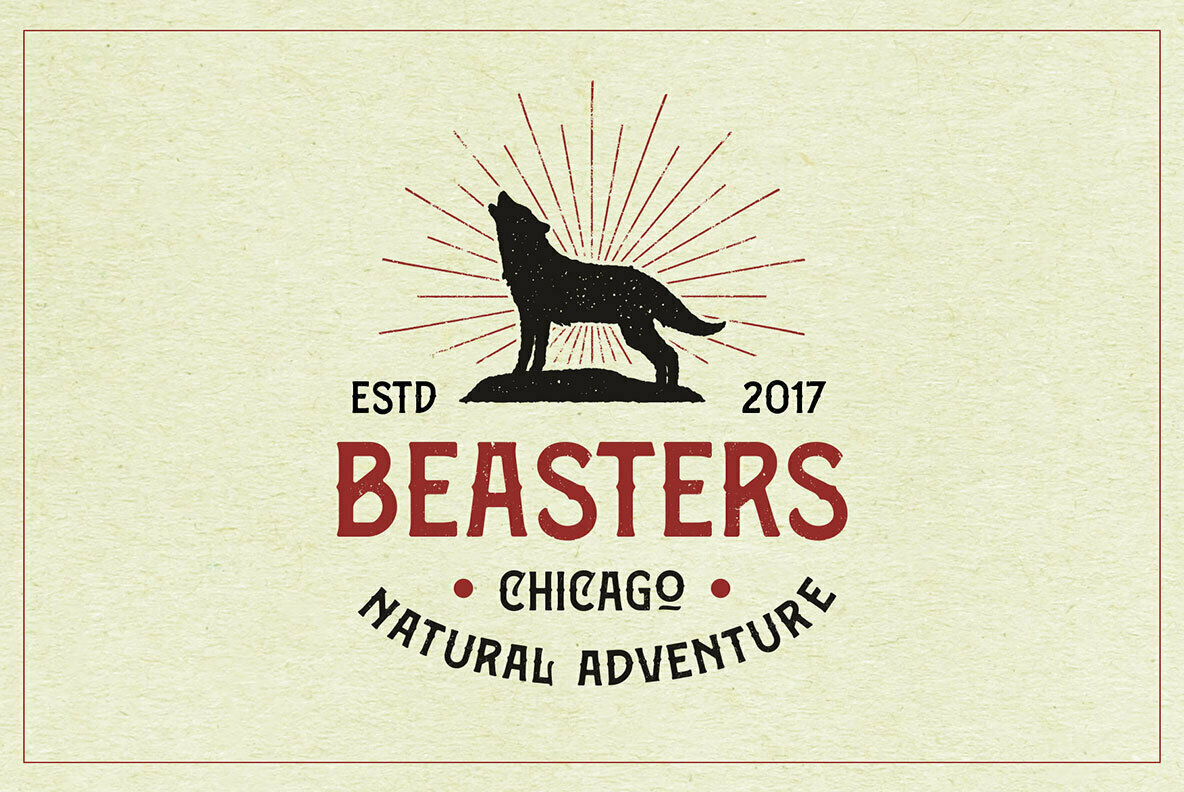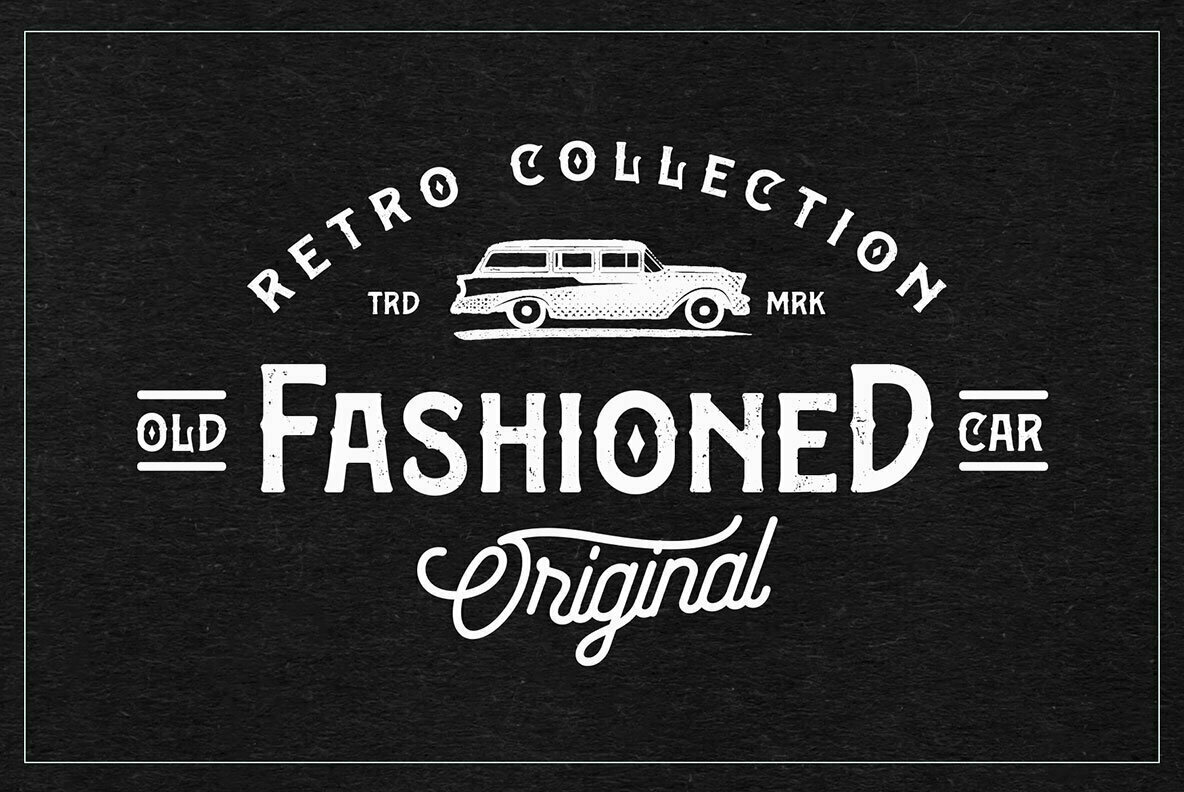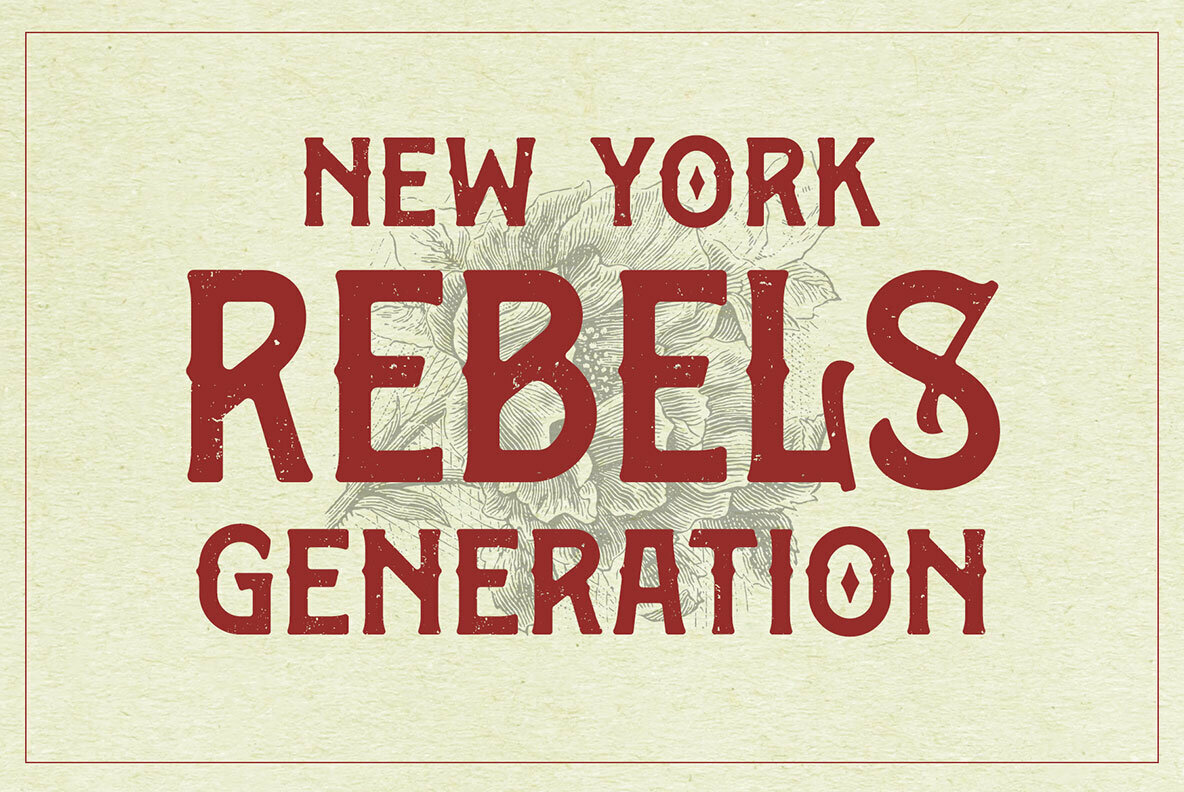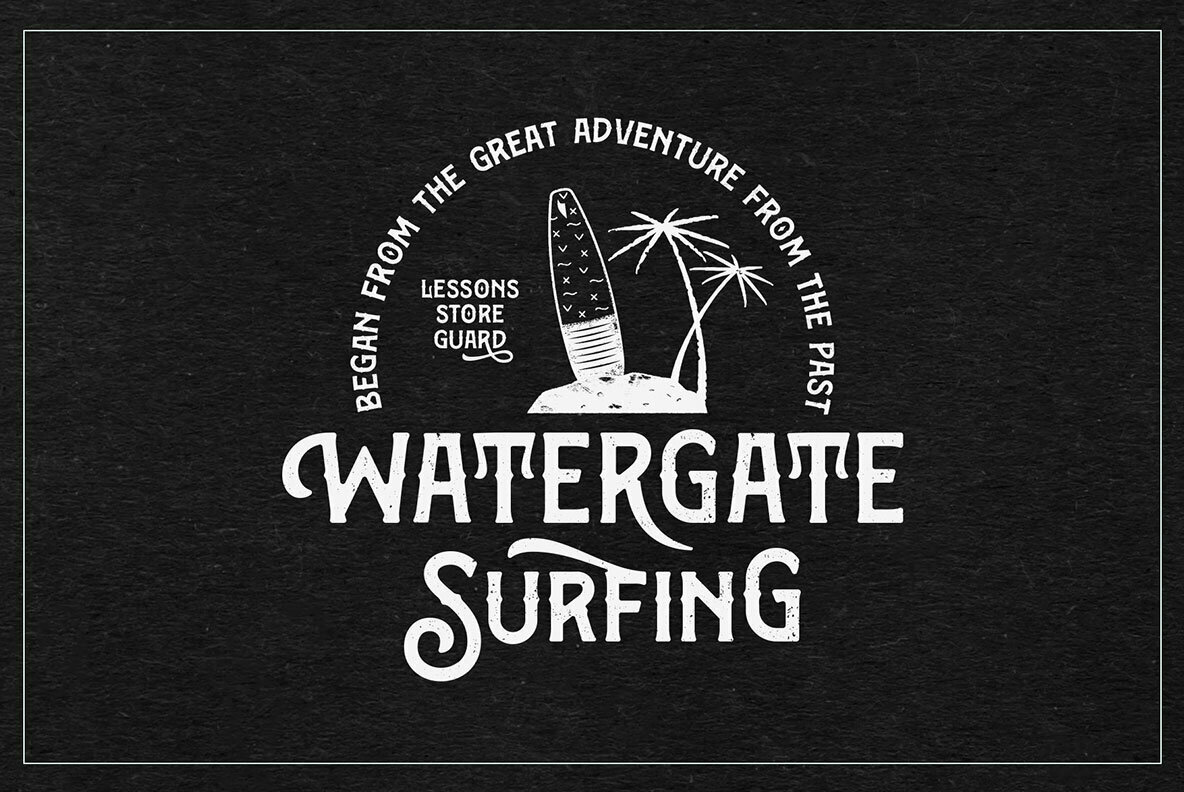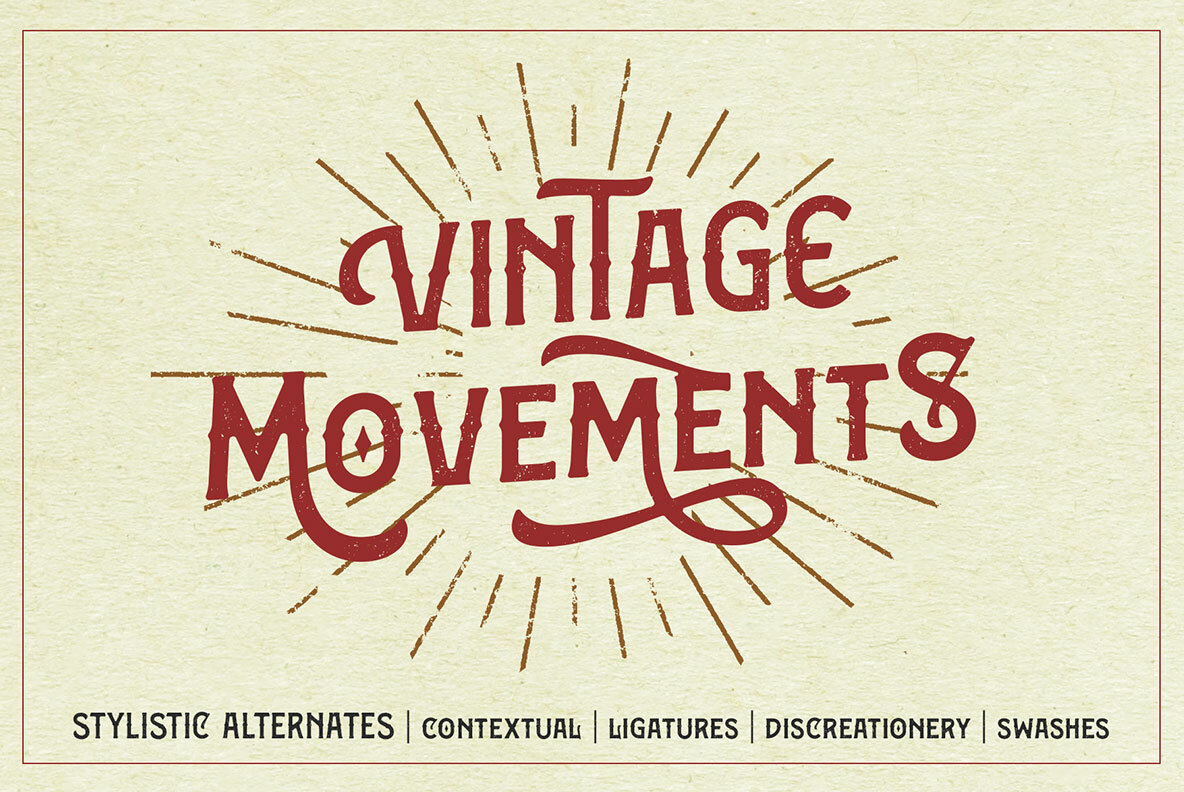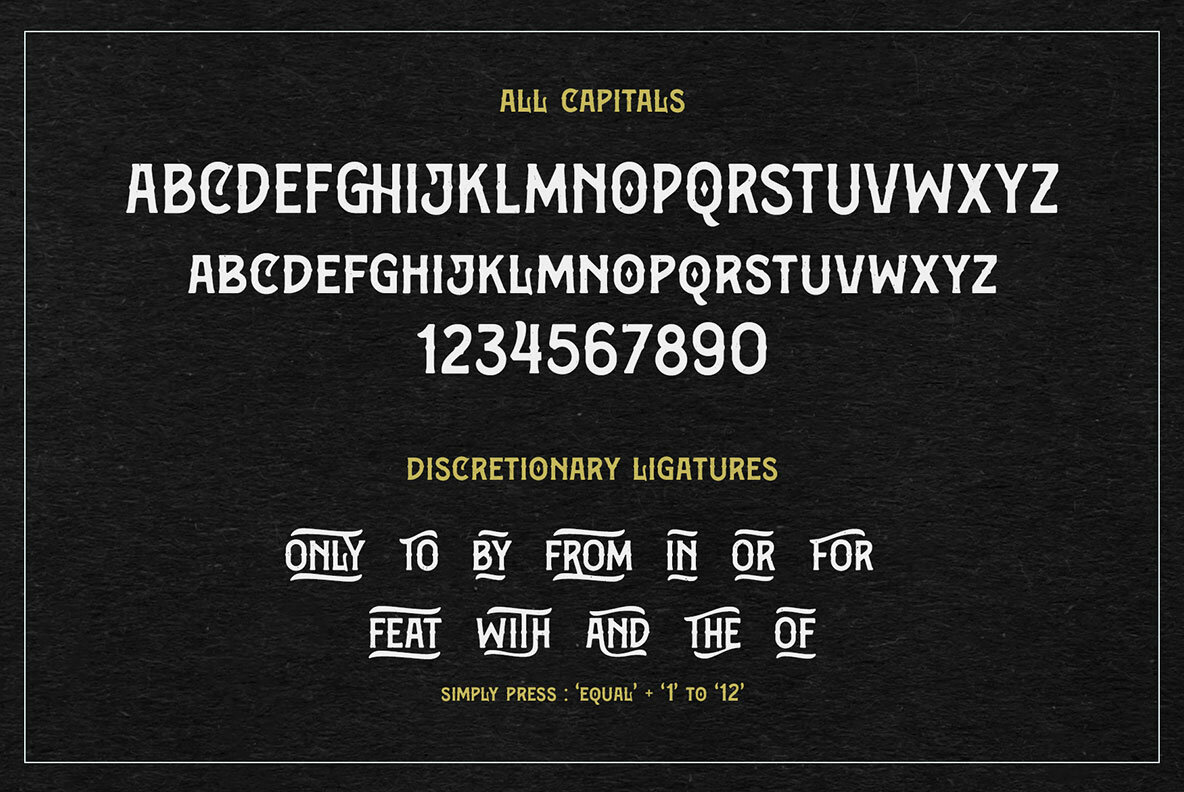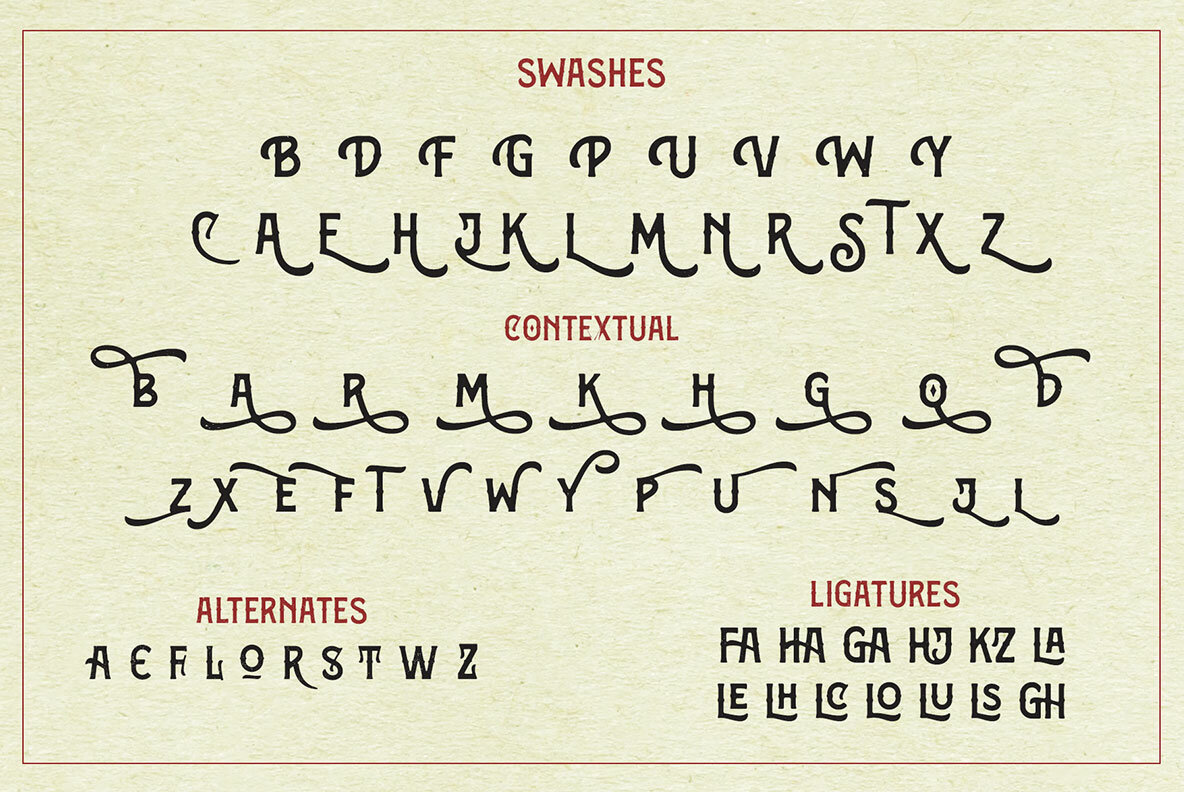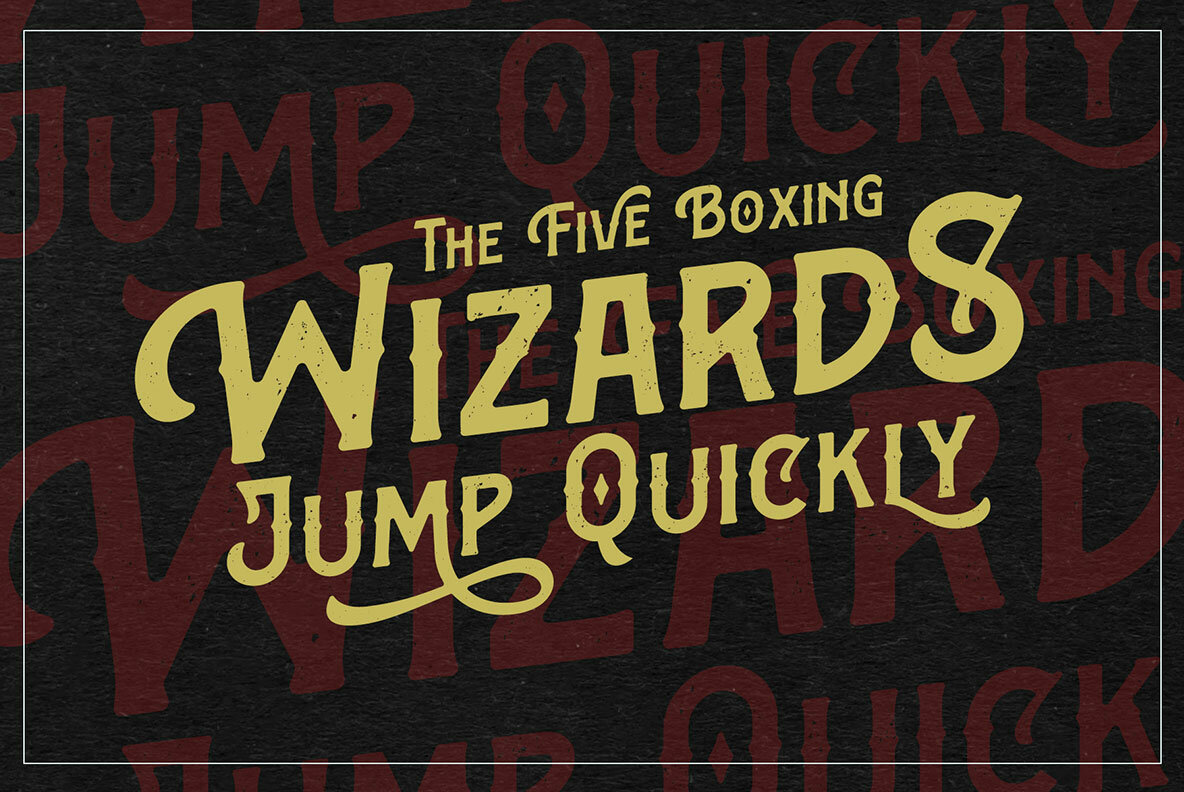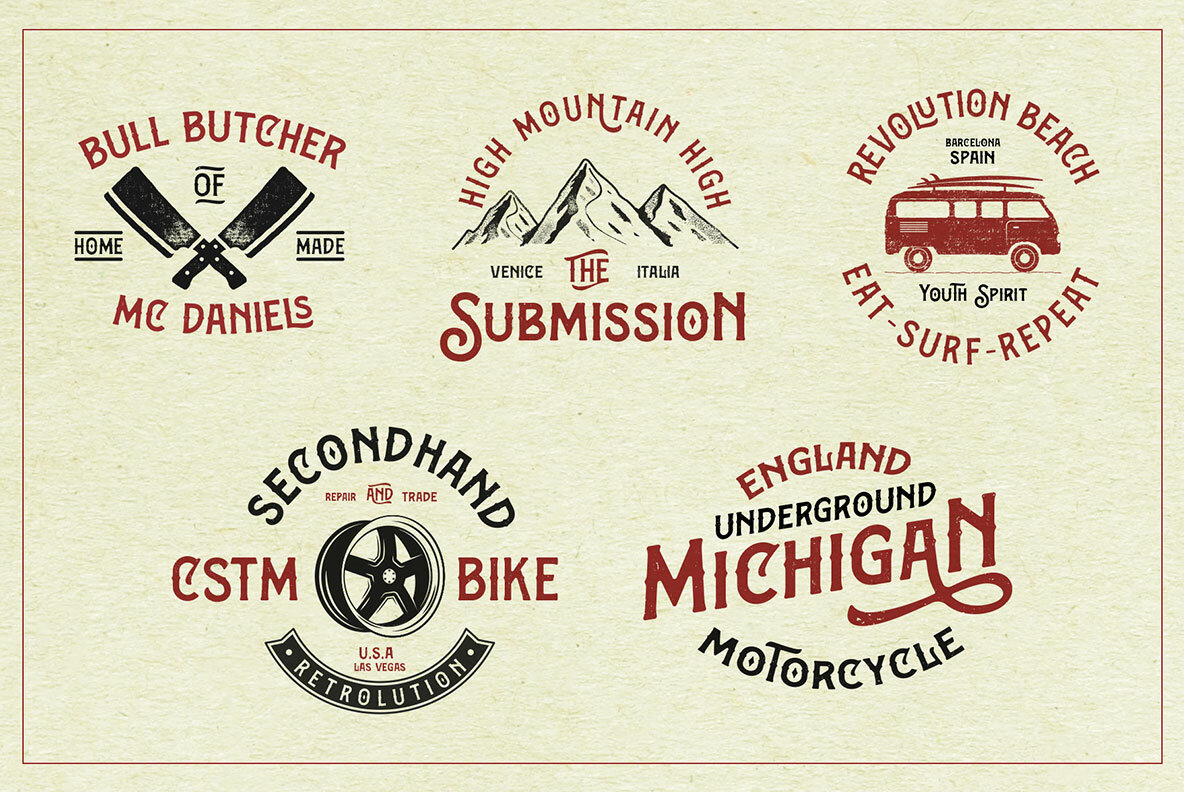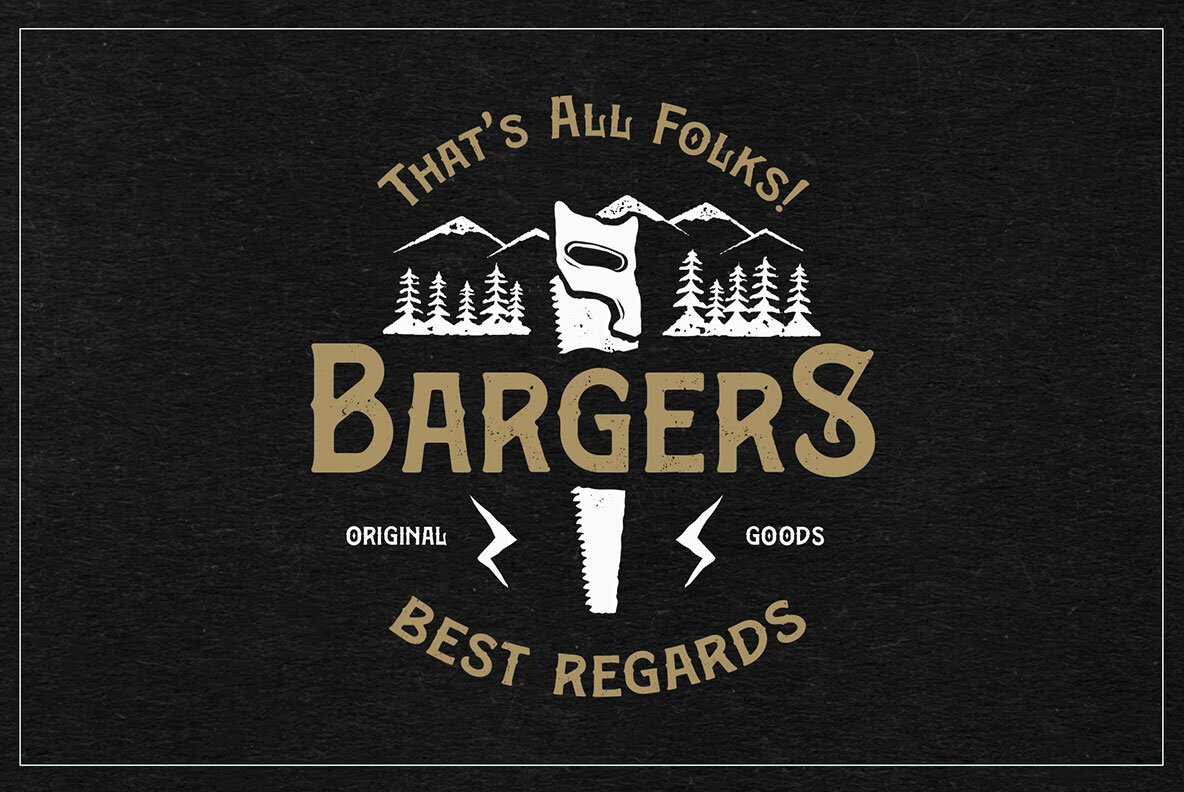
Bargers Distressed
Bargers Distressed, designed by Ahmad Ramzi Fahruddin, is a distinctive all-capitals typeface that captures the essence of vintage aesthetics. Featuring expertly crafted curves and distressed detailing, this solid typeface evokes the charm of old-school printing. The subtle aging transforms the letterforms, offering a touch of nostalgia and sophistication. Perfectly suited for vintage logos, stores, companies, or merchandise like t-shirts and flyers, Bargers Distressed provides ample spacing between letters to enhance its vintage appeal. This typeface goes beyond the conventional with discretionary ligatures, crafted to form engaging catchwords such as 'the' and 'only', while its contextual alternates and elegant swashes add a touch of refinement to any project.Bargers Distressed: A Vintage Typeface with Character